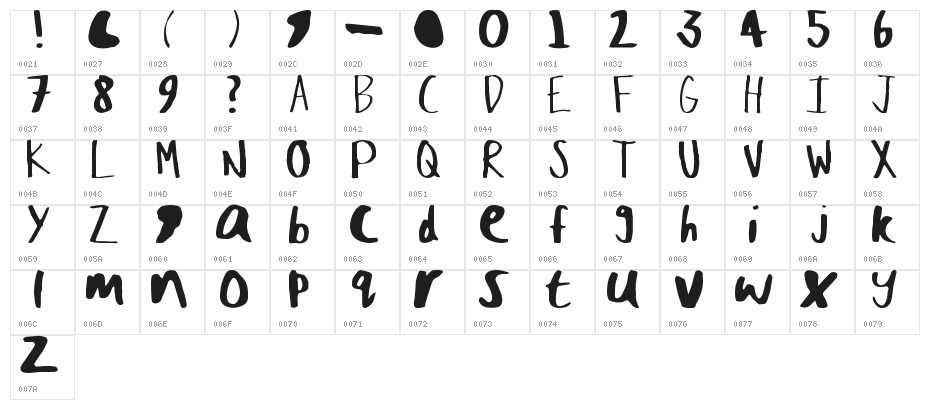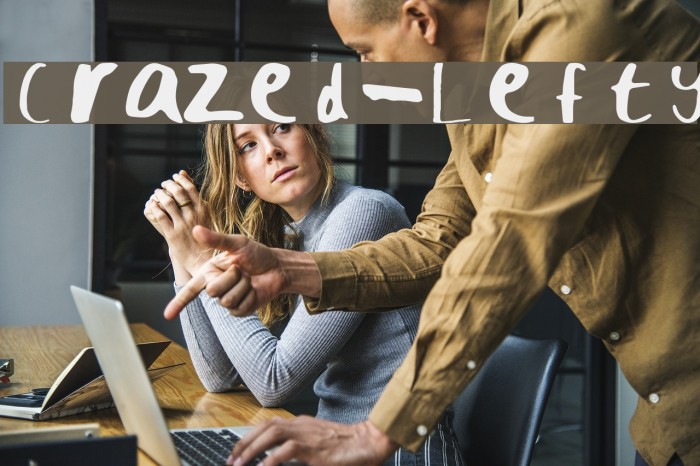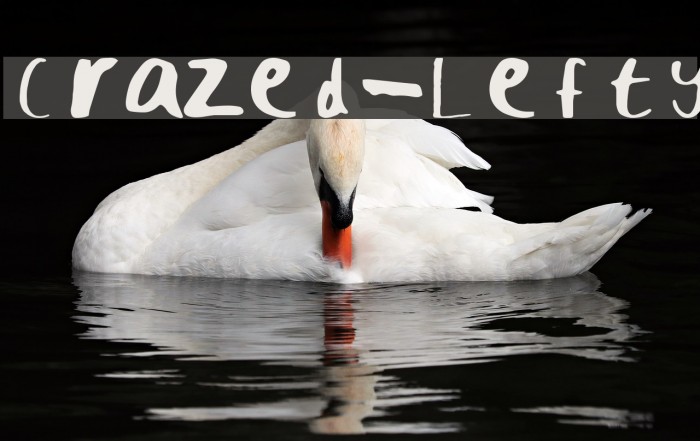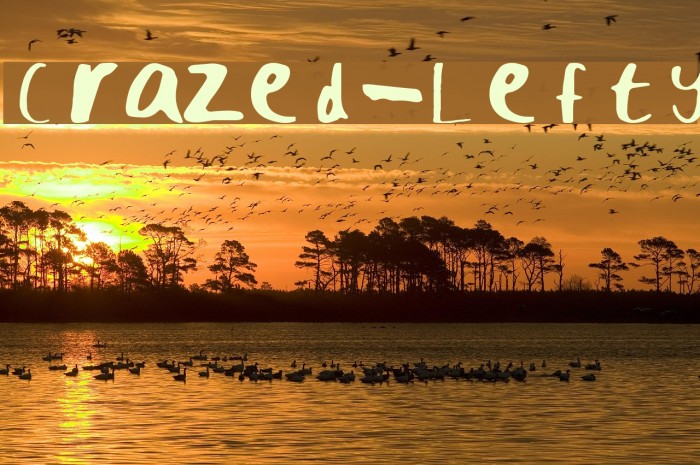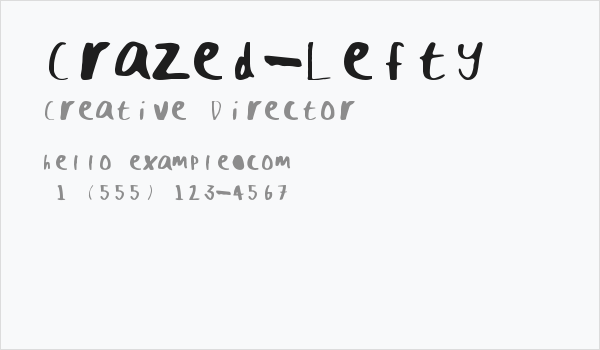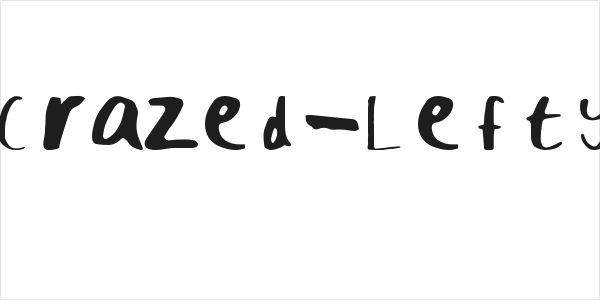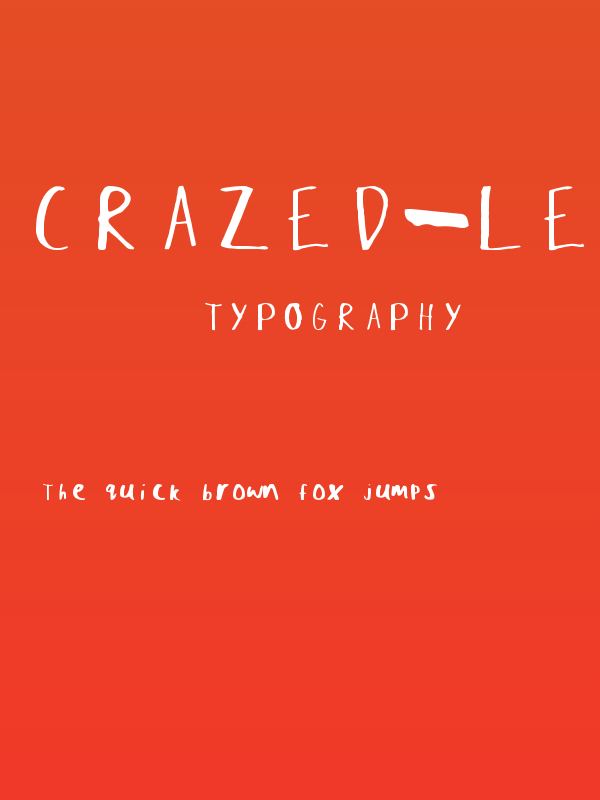
Crazed-Lefty Font
Crazed-Lefty Description
This font exhibits a playful and whimsical style, characterized by its uneven and irregular strokes that give it a hand-drawn appearance. The uppercase letters are tall and slightly narrow, with varying stroke widths that add a dynamic feel. The lowercase letters are bold and rounded, providing a strong contrast to the uppercase set. Numbers are bold and slightly tilted, enhancing the quirky aesthetic. Special characters maintain the same playful style, with exaggerated curves and angles. Overall, this font conveys a sense of creativity and spontaneity, making it ideal for projects that require a personal touch.
| Proposed Projects | Ideal for children's books, creative posters, casual branding, and artistic invitations. |